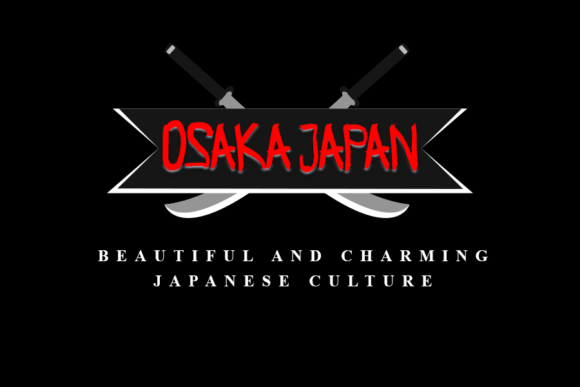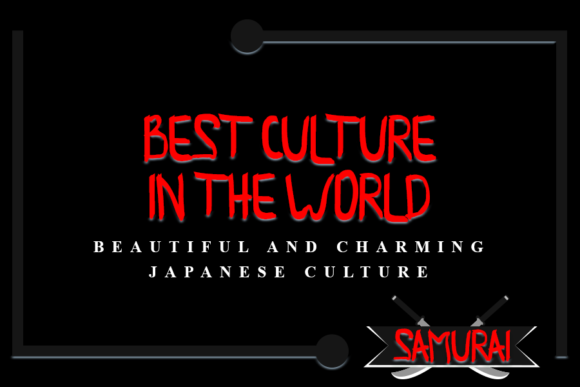
The Perfect Blend of Handwritten Charm and Modern Flair
You know that moment when you stumble upon a font that makes your design just click? The one that takes it from meh to mesmerizing? For us creatives, that moment is pure magic. It’s the spark that ignites a whole new world of possibilities and inspires us to push the boundaries of what’s possible.
Enter Itsuka Yashi Font, a modern handwritten font that’s about to become your new best friend. This stunning font is designed to shine in any context, whether you’re using it on a busy background or as a standalone headline. Its unique blend of handwritten charm and modern flair makes it the perfect addition to any design project.
As a designer, you know how valuable it is to have a versatile font that can elevate your work. Itsuka Yashi Font is that game-changer. With its exceptional legibility and stylish vibe, it’s sure to make your designs stand out from the crowd and leave a lasting impression on your audience.
Key Features of “Itsuka Yashi Font”
- Font Family: Itsuka Yashi is a Japanese font family designed for various purposes, including body text and display use.
- Unique Characteristics: Itsuka Yashi features a unique blend of traditional Japanese and modern design elements, resulting in a distinctive and elegant aesthetic.
- Language Support: Supports the Japanese language, with full support for Hiragana, Katakana, and Kanji characters.
- Font Styles: Available in multiple font styles, including Regular, Bold, Italic, and Bold Italic, providing flexibility for various design applications.
Itsuka Yashi Font Review
As a designer, I was excited to dive into the Itsuka Yashi font. Overall, I found it to be a unique and stylish addition to any project.
- Handwritten feel: The Itsuka Yashi font has a beautiful, handwritten feel that’s perfect for creating a personal or artistic vibe in your designs.
- Customizable: The font is highly customizable, allowing you to adjust the weight, spacing, and other characteristics to fit your needs.
- Unique look: Itsuka Yashi has a distinctive look that’s sure to stand out from more common fonts.
- Limited legibility: At smaller font sizes, Itsuka Yashi can be difficult to read, making it less suitable for body text or large blocks of text.
- Not ideal for headlines: While Itsuka Yashi is great for creating a personal vibe, it may not be the best choice for headlines or titles that need to be clear and concise.
Overall, I’d give Itsuka Yashi 4 out of 5 stars. It’s a beautiful, unique font that’s perfect for adding a personal touch to your designs. However, it’s not without its limitations, and you may need to use it judiciously to get the best results.
Itsuka Yashi Font is a beautiful, elegant font perfect for:
Wedding invitations, stationery, and decorations
Artistic and creative projects, such as posters and prints
Personalized gifts, such as customized phone cases and mugs
To get the most out of Itsuka Yashi Font, experiment with different font sizes, colors, and styles to create a unique and eye-catching design.